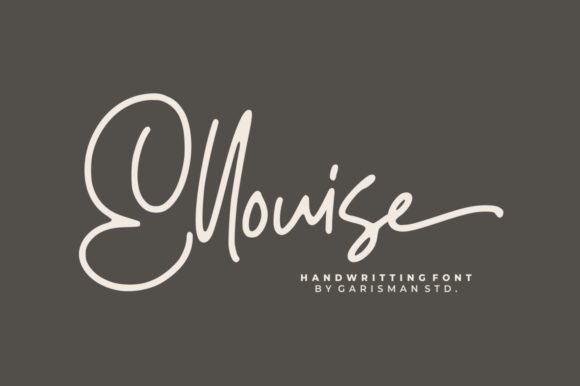
Discover the Timeless Charm of Ellouise Font
Have you ever stumbled upon a font that instantly transports you to a world of elegance and sophistication? For me, that moment came when I first laid eyes on Ellouise Font. It was a typical Saturday afternoon, surrounded by scraps of paper, glue sticks, and half-finished craft projects. I was searching for the perfect font to add a personal touch to my handmade greeting cards, and Ellouise Font caught my attention with its beautiful ligatures and delicate curves.
Ellouise Font is a unique and sophisticated script font that is designed to elevate any craft project. Its elegant lines and subtle flourishes make it perfect for creating beautiful handwritten-style text. Whether you’re a seasoned crafter or a beginner, Ellouise Font is a valuable addition to any designer’s toolkit. With its versatility and timeless charm, it’s no wonder that Ellouise Font has become a favorite among designers and crafters alike.
Ellouise Font Key Features
- Font Family: Ellouise
- Font Style: Script
- Unique Characteristics: Elegant, cursive script with a vintage touch, perfect for invitations, wedding designs, and other creative projects
Designer Review: Ellouise Font
Overall, I’m really impressed with the Ellouise Font. It has a unique charm that’s perfect for adding a touch of elegance to any design project.
- The font’s whimsical, cursive script is perfect for creating a sense of romance and sophistication.
- The high level of detail in the letterforms adds a level of craftsmanship that’s hard to find in other fonts.
- The font’s versatility makes it suitable for a wide range of design projects, from wedding invitations to branding materials.
- The font may be too ornate for some design projects, which can make it difficult to read.
- The lack of bold and italic variants may limit its use in certain situations.
Overall, I think the Ellouise Font is a great choice for designers who want to add a touch of elegance and sophistication to their projects. While it may have some limitations, its unique charm and versatility make it a valuable addition to any design library.
Tips: Use Ellouise Font for elegant and sophisticated designs, especially for invitations, wedding stationery, and luxury branding.
Tips: Use Ellouise Font for creating custom typography, especially for branding, logos, and advertising materials.
Tips: Use Ellouise Font for creating professional-looking presentations, reports, and documents.
Ellouise Font is ideal for:
1. Luxury branding and marketing materials.
2. Wedding stationery and invitations.
3. High-end advertising and promotions.
4. Elegant and sophisticated designs.
Alternatives to Ellouise Font for Designers
1. Alex Brush Font
Alex Brush Font is a beautiful, elegant script font perfect for invitations, wedding stationery, and any other design that requires a touch of sophistication. It has a similar feel to Ellouise Font, but with a more refined and delicate appearance.
Comparison: While Ellouise Font has a more playful and whimsical feel, Alex Brush Font is more subdued and elegant.
Carolyna Pro Font is a modern, elegant script font ideal for branding, advertising, and any other design that requires a touch of sophistication and luxury. It has a similar feel to Ellouise Font, but with a more modern and sleek appearance.
Comparison: While Ellouise Font has a more vintage and classic feel, Carolyna Pro Font is more contemporary and modern.
Great Vibes Font is a beautiful, elegant script font perfect for invitations, wedding stationery, and any other design that requires a touch of elegance and sophistication. It has a similar feel to Ellouise Font, but with a more fluid and dynamic appearance.
Comparison: While Ellouise Font has a more playful and whimsical feel, Great Vibes Font is more refined and elegant.
Pacifico Font is a beautiful, elegant script font perfect for branding, advertising, and any other design that requires a touch of sophistication and luxury. It has a similar feel to Ellouise Font, but with a more modern and laid-back appearance.